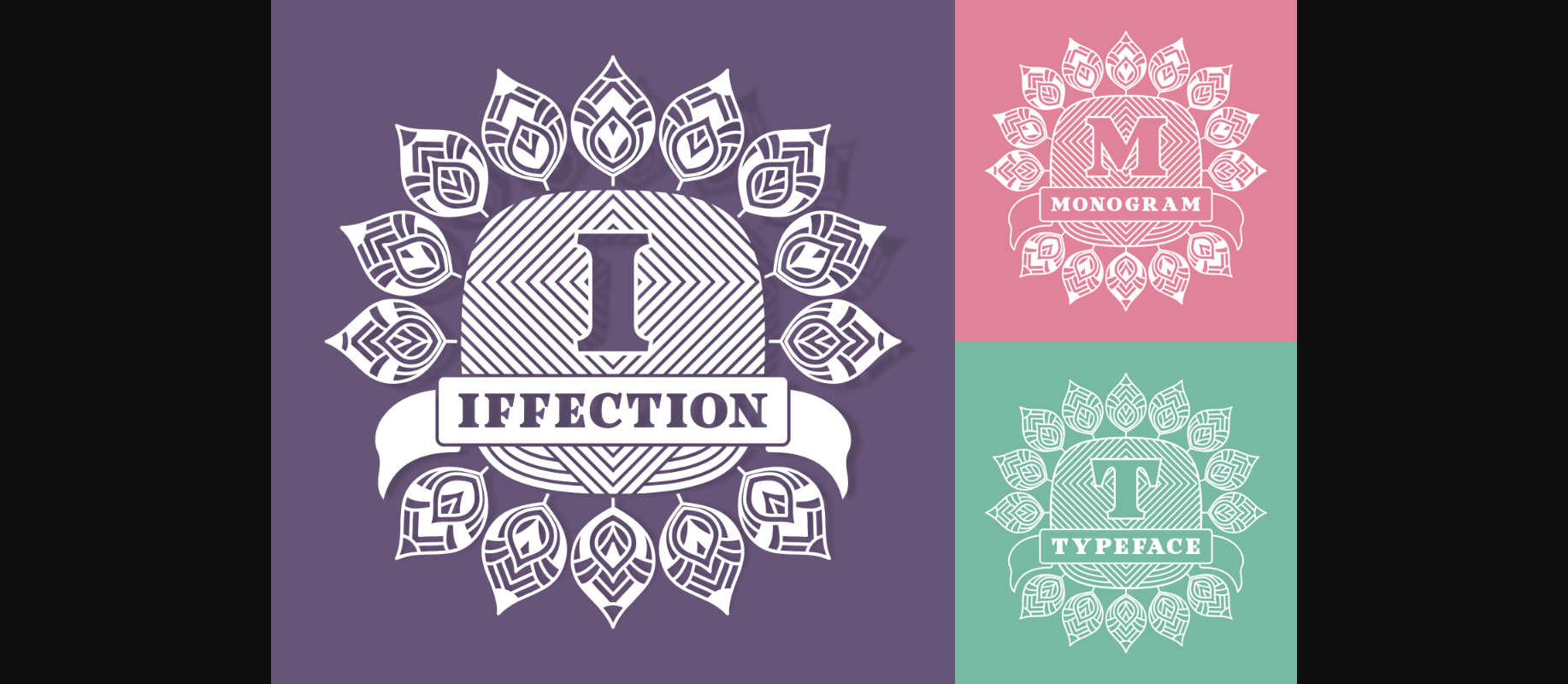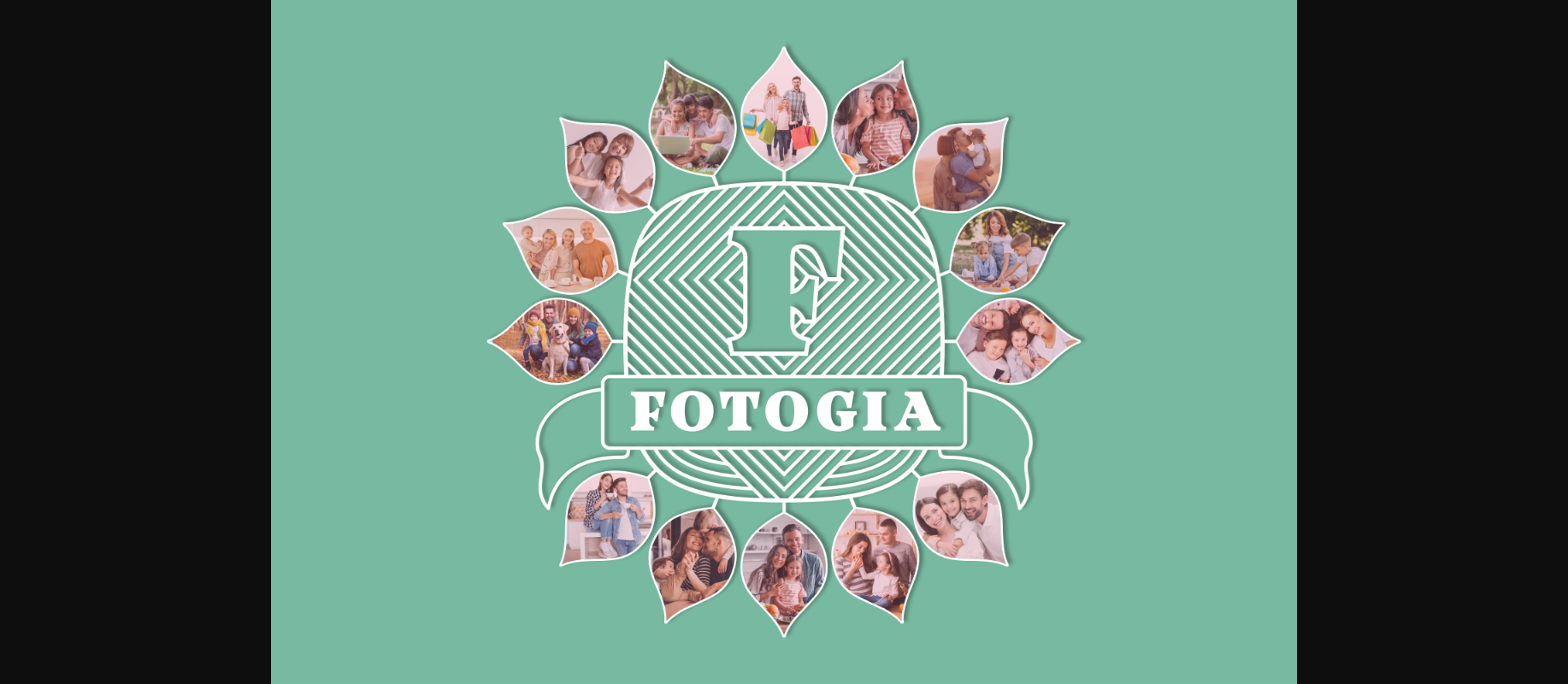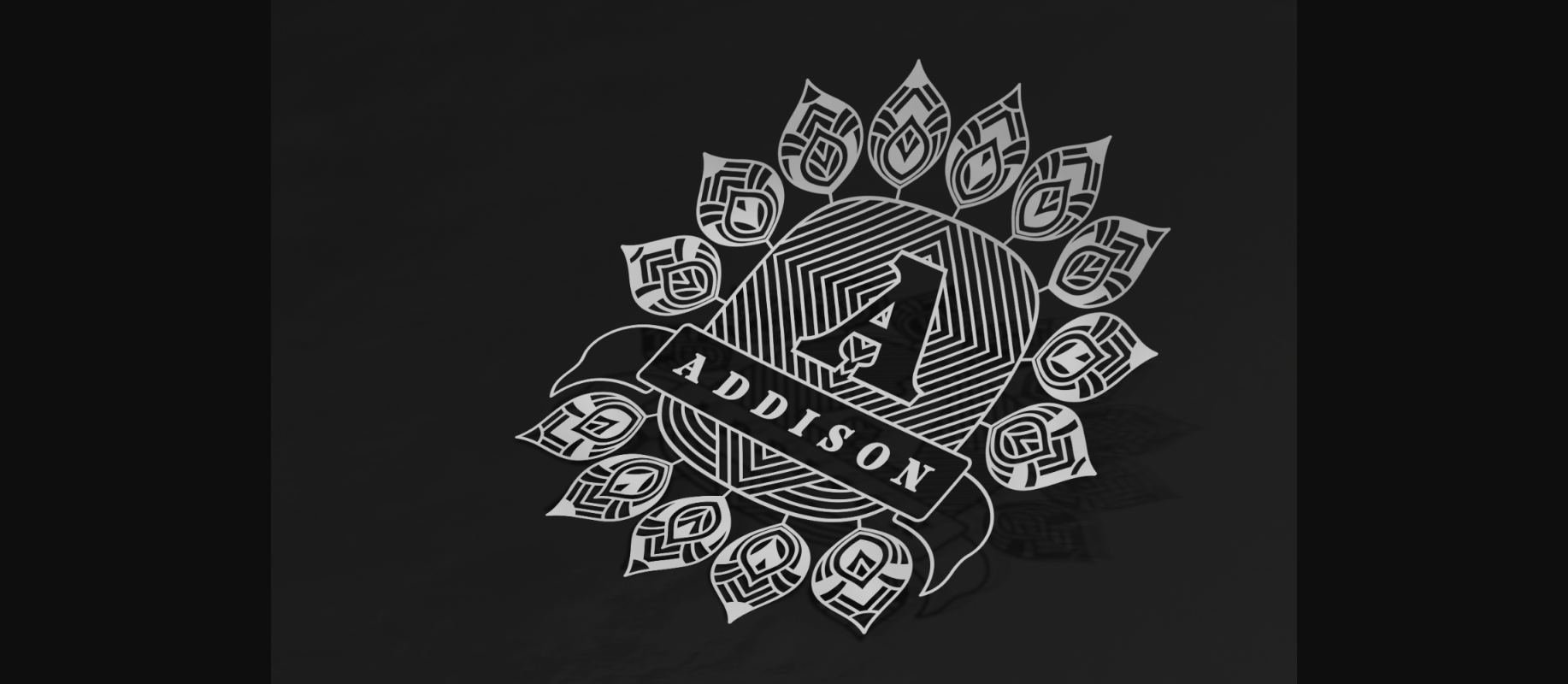
About Iffection Font
Iffection is an unique and highly detailed decorative font. It is PUA encoded which means you can access all of the glyphs and swashes with ease!
Fall in love with its incredibly versatile style and use it to create spectacular designs.